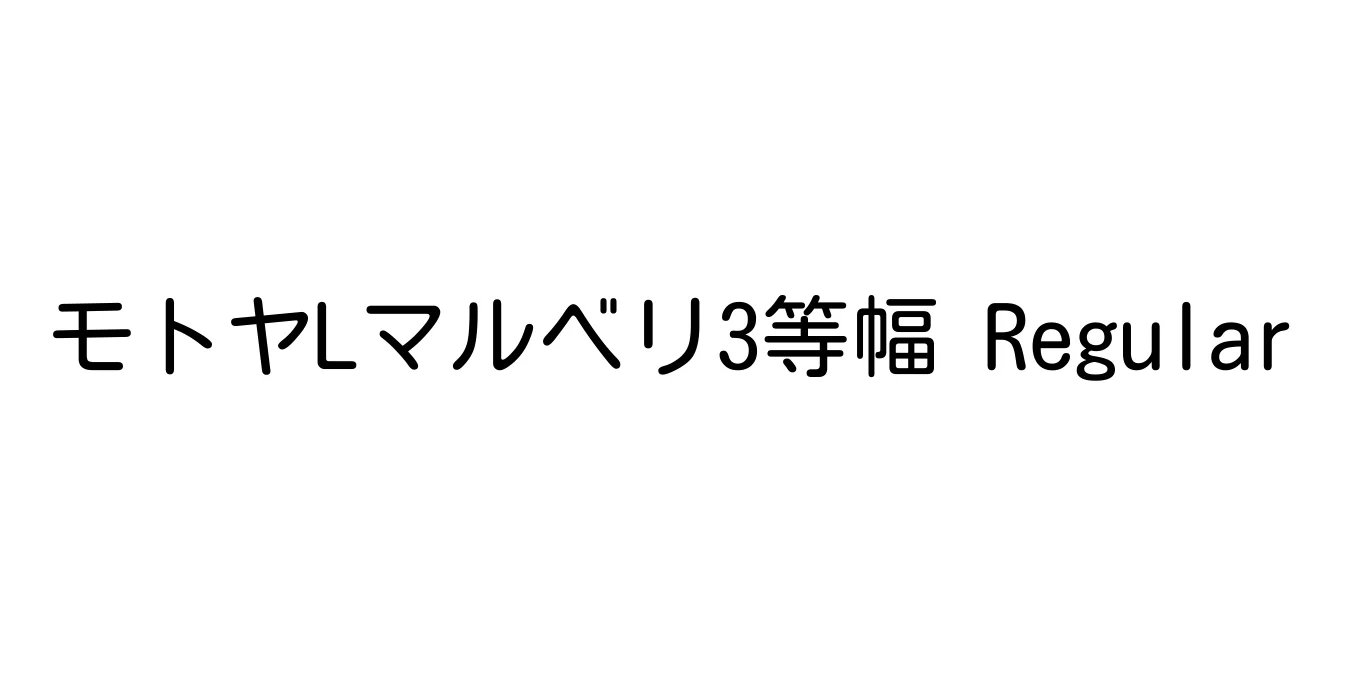
モトヤLマルベリ3等幅 Regular
Designed by Motoya Co., Ltd.
| Font Name | モトヤLマルベリ3等幅 |
| Category | Monospaced Rounded Gothic (Maru Gothic) |
| Designer | Motoya Co., Ltd. |
Motoya L Maru Berry 3 Monospace (モトヤLマルベリ3等幅) is a high-quality rounded Japanese Gothic font developed by the prestigious Motoya Co., Ltd., a foundry with a history dating back to the 1950s. This specific version is a monospaced variant, meaning every character is designed with a uniform width. This characteristic makes it exceptionally suitable for technical environments, such as source code editors or structured data layouts, where vertical alignment is a priority. The font is celebrated for its soft, rounded terminals that create a friendly and approachable aesthetic without sacrificing professional clarity.
Originally designed to enhance readability on digital screens, the Maru Berry series has been widely utilized in various sectors, including Japanese broadcasting and the Android operating system. Its modern geometric construction and balanced negative space ensure that the font remains legible even at small sizes or on low-resolution displays. By blending traditional Japanese typography principles with contemporary UI/UX requirements, Motoya L Maru Berry 3 Monospace stands out as a versatile choice for designers seeking a clean, harmonious, and highly functional typeface.
モトヤLマルベリ3等幅 Regular Best Uses
Optimized for mobile apps and system menus where legibility is critical.
The monospaced layout is ideal for coding, terminal emulators, and data tables.
Provides a smooth and comfortable reading experience for e-books and blogs.
The friendly rounded style works well for educational and instructional materials.